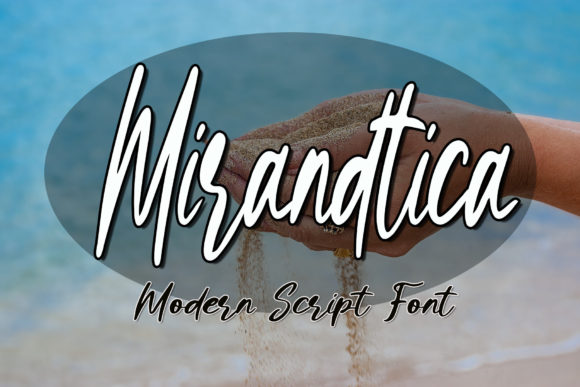
Step into the enchanting world of Mirandtica, an exquisite script font that takes you on a journey of elegance and charm. Each letter dances with grace, embodying a symphony of beauty that captivates the senses. Indulge in the allure of Mirandtica's stylish alternates and ligatures, which weave a tale of creativity and imagination. Discover the infinite possibilities of this versatile font, effortlessly adaptable to any project, from captivating logos and branding to enchanting invitations and heartfelt messages.
Adorn your designs with the chic, trendy strokes of Mirandtica, and watch as your words transform into a breathtaking spectacle. Let the timeless essence of Mirandtica elevate your projects to new heights of sophistication. Experience the thrill of creating designs that exude confidence and allure, leaving an indelible mark on your audience.
Embrace the creative potential of Mirandtica today. Let your imagination soar as you unleash the boundless possibilities of this stunning script font. Immerse yourself in the magic of Mirandtica, where beauty meets versatility, and your designs transcend the ordinary.